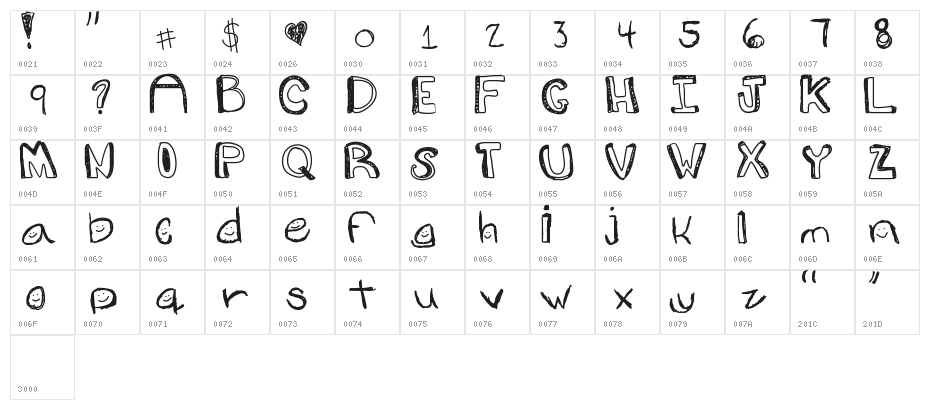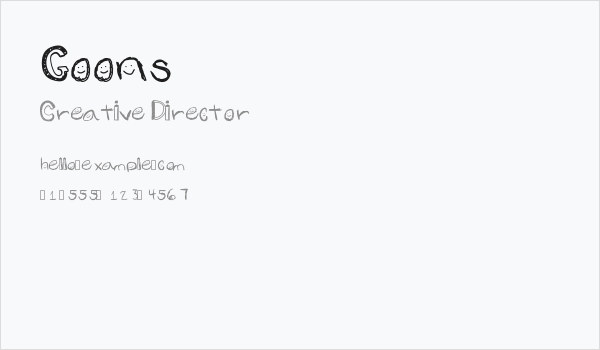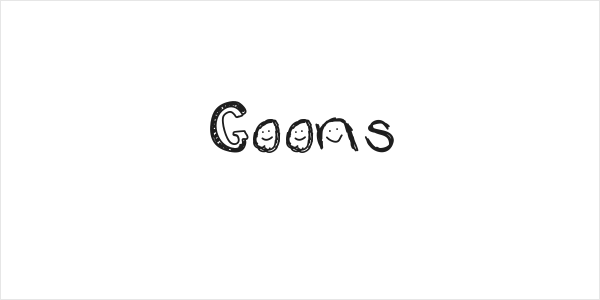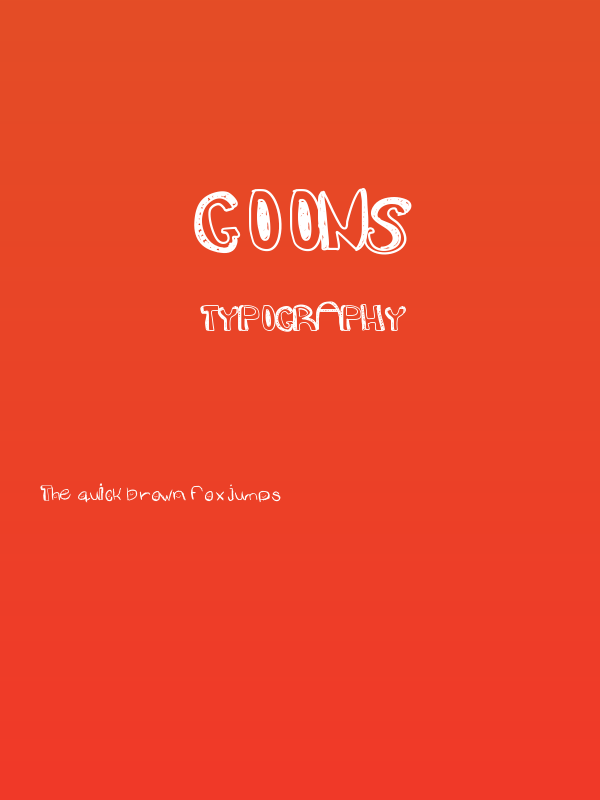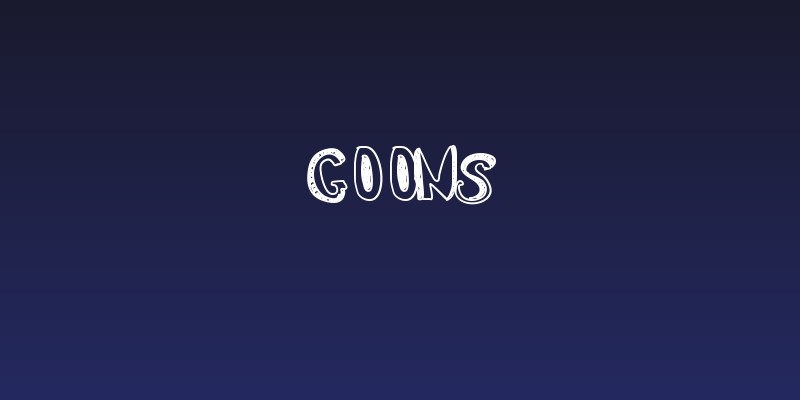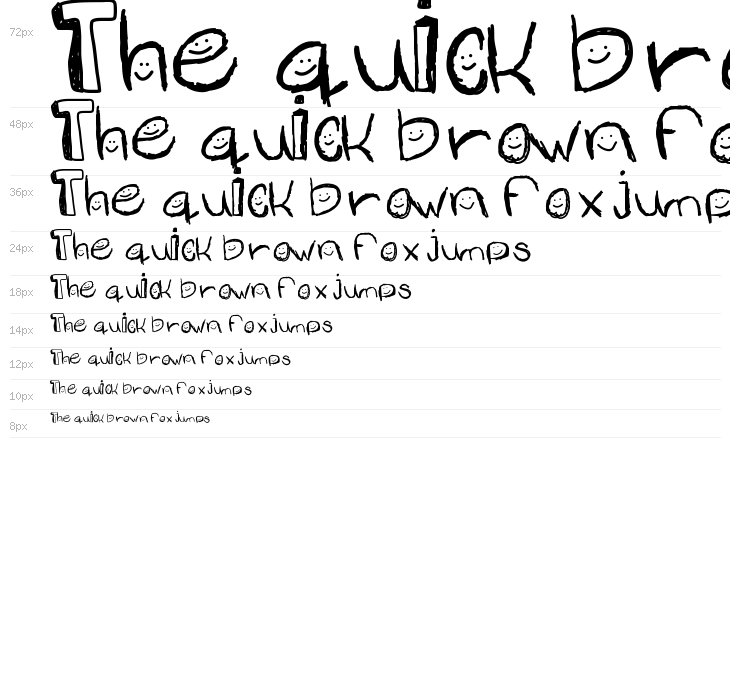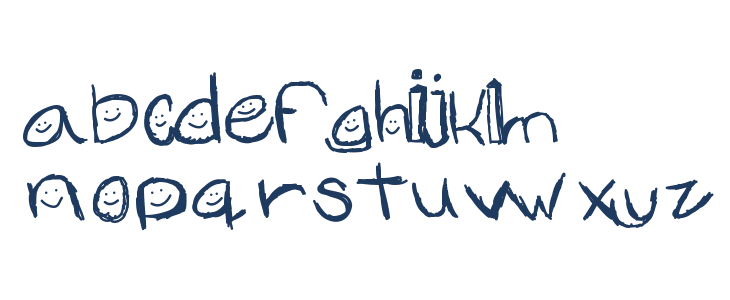
Goons Font
Goons Description
This playful and quirky font features a hand-drawn style with a bold, uneven stroke that gives it a lively and energetic appearance. The uppercase letters are characterized by their thick outlines and irregular shapes, while the lowercase letters maintain a similar whimsical style with added personality through subtle variations. The numbers and special characters follow the same playful design, making the font suitable for creative and informal projects. The overall look is reminiscent of doodles or graffiti, adding a touch of fun and spontaneity to any text.
| Use Case | Headlines, Logos, Informal Text |
| Proposed Projects | Ideal for children's books, comic strips, playful branding, or any project needing a fun and informal touch. |